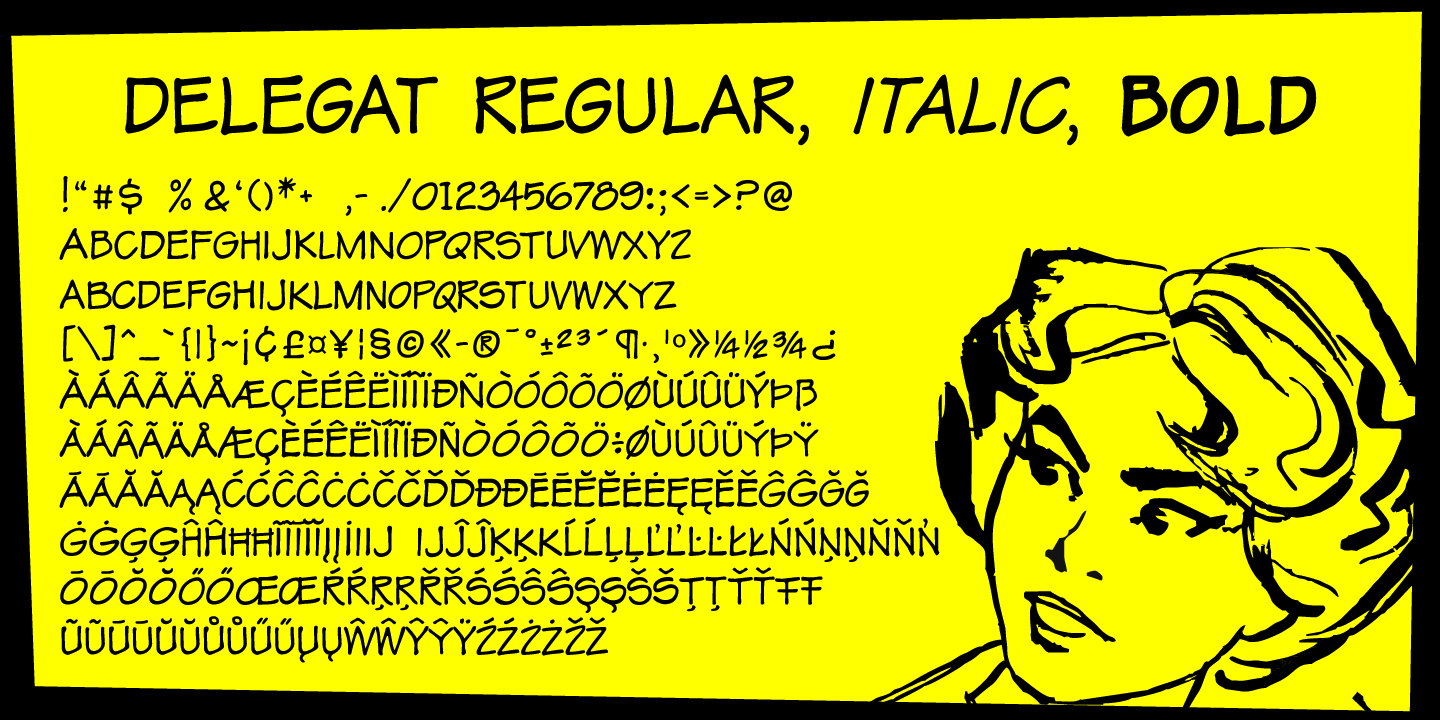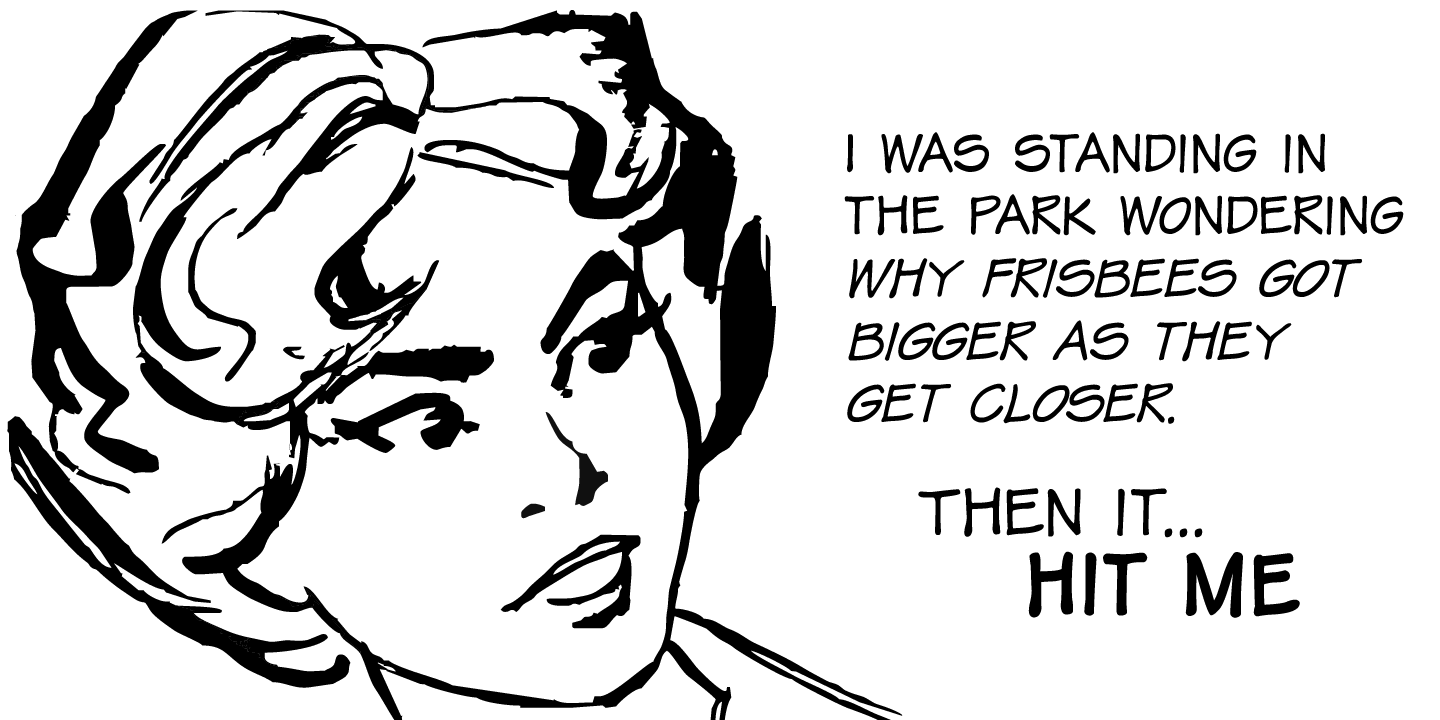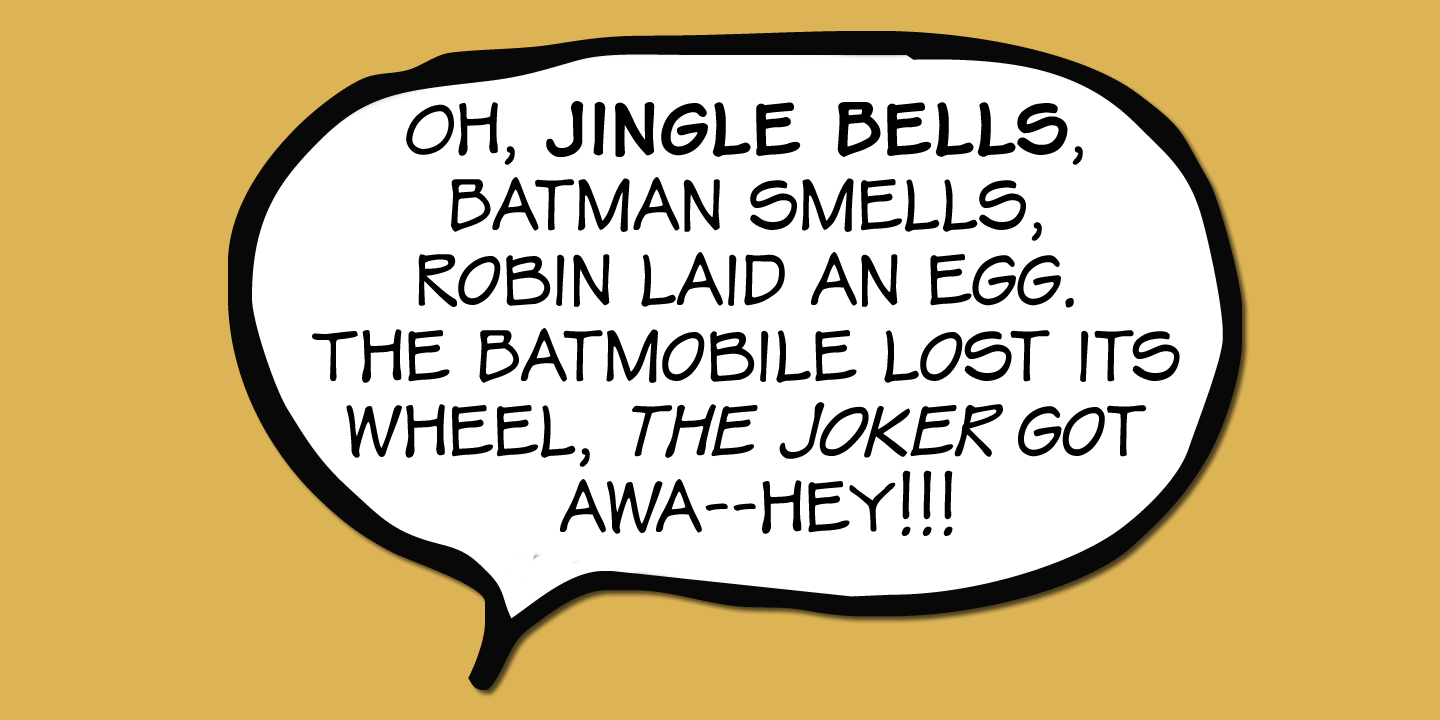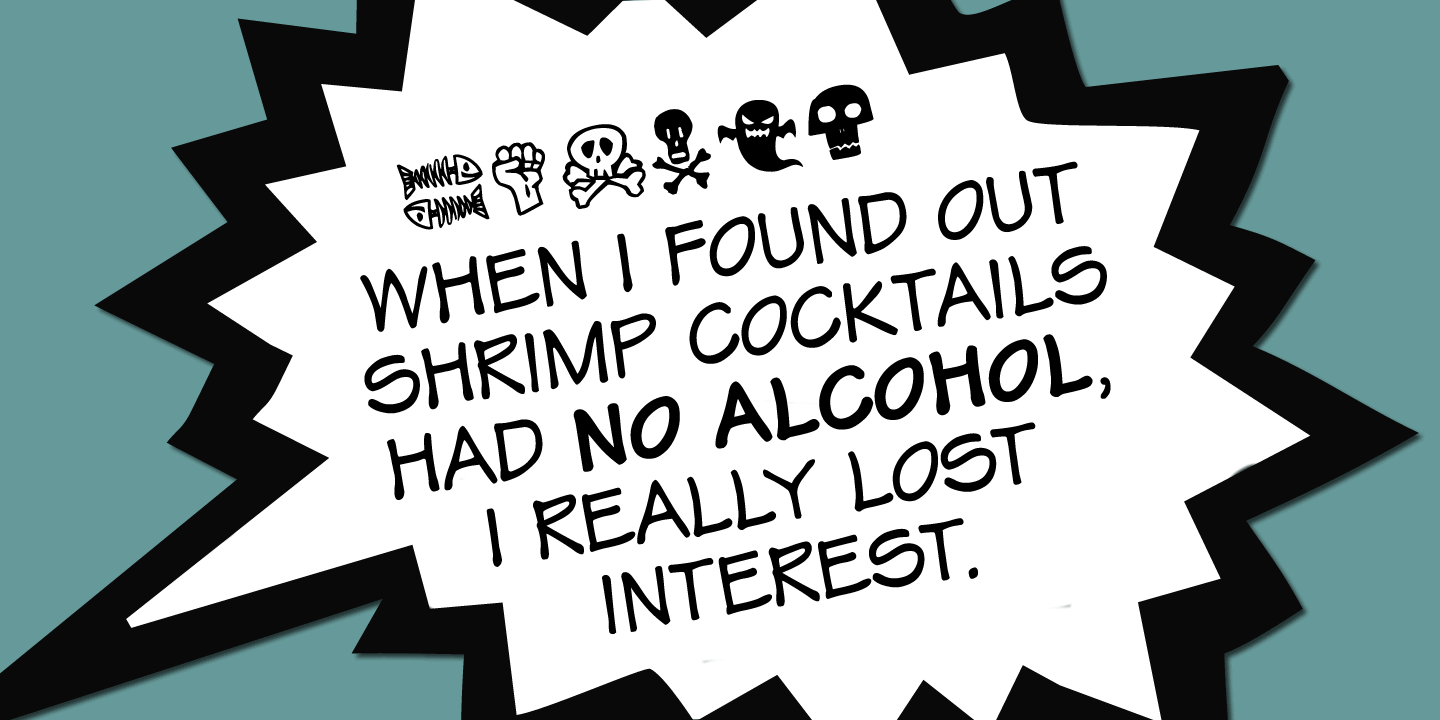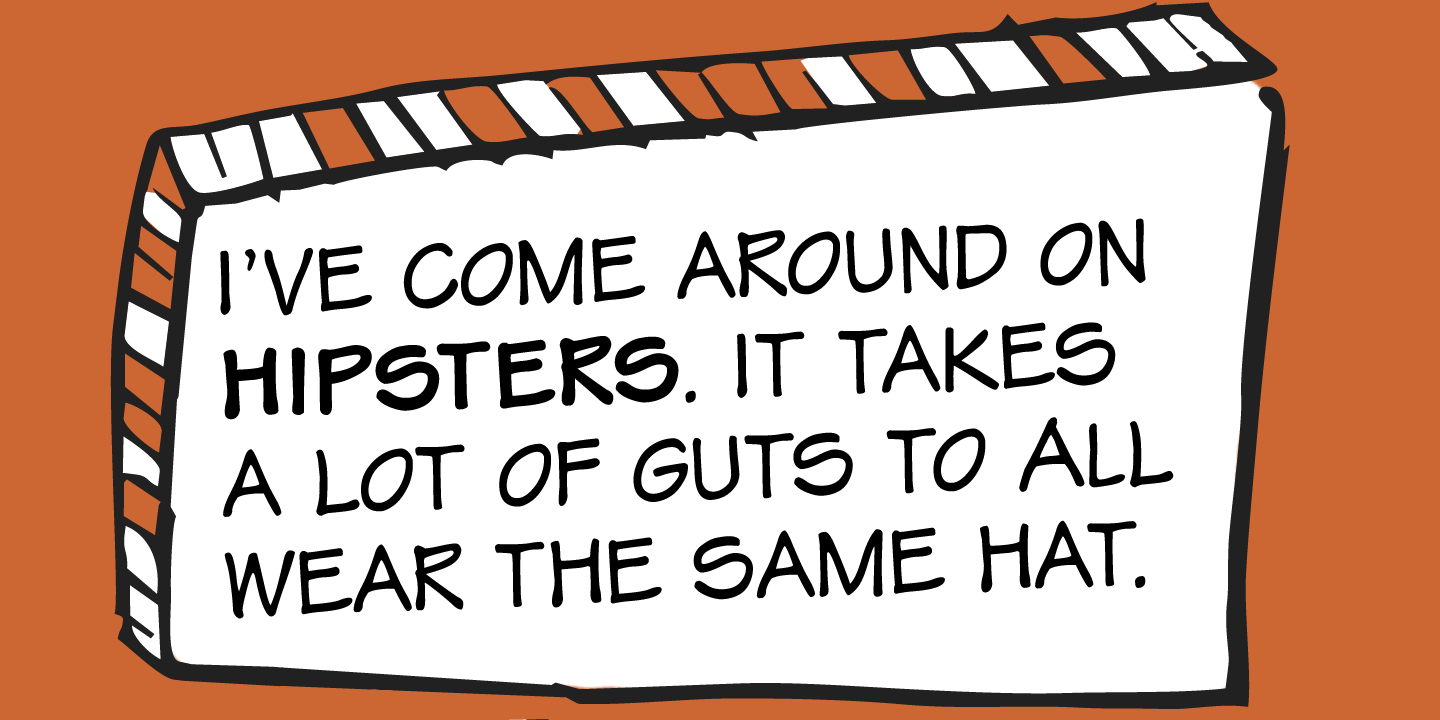
Delegat
Font Family by GRIN3 (Nowak)
Delegat is a comic book lettering font inspired by handwritting of Frank Ching. The family includes Regular, Italic and Bold version.
Delegat contains two variations for each letter and ligatures to swap out any two identical letters that appear next to one another for a pair that is slightly different. Delegat Extra can be used to disguise curse words in comics.
Language support includes Western, Central and Eastern European character sets, as well as Baltic and Turkish languages.